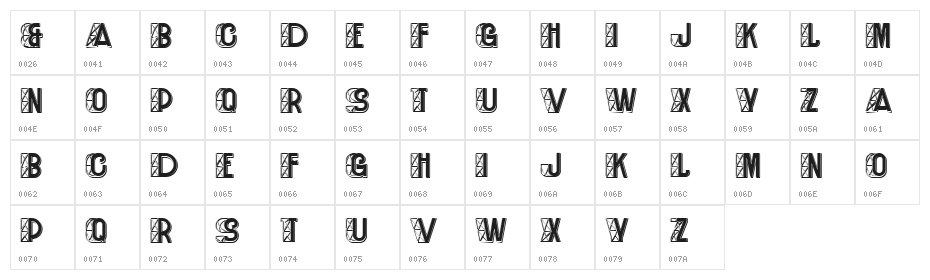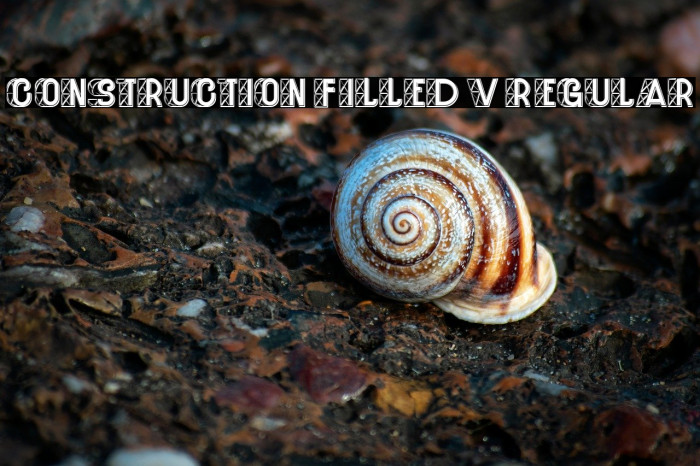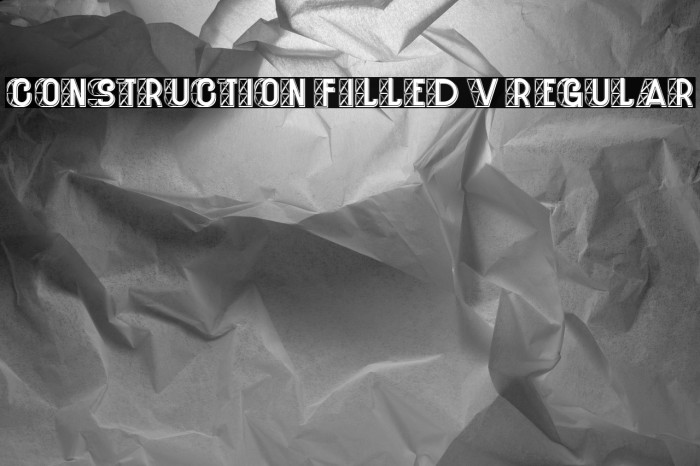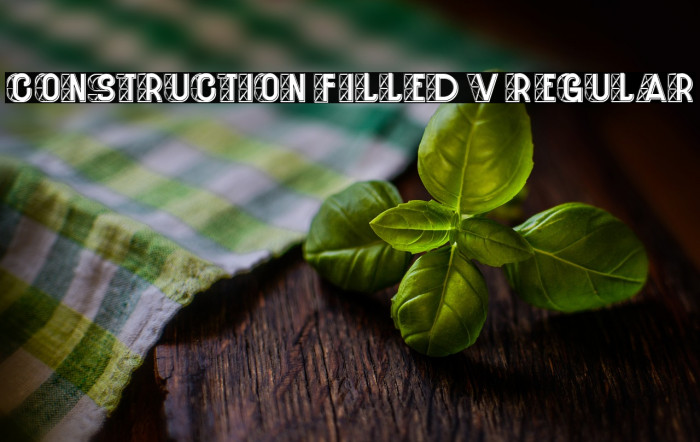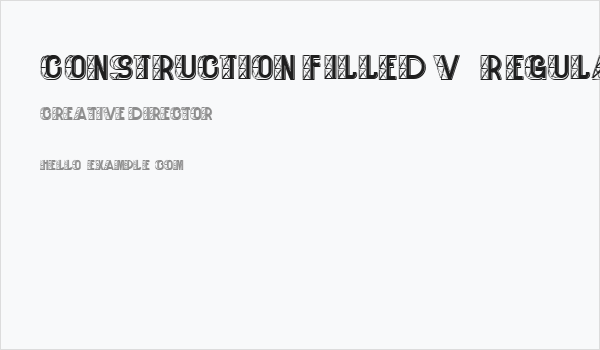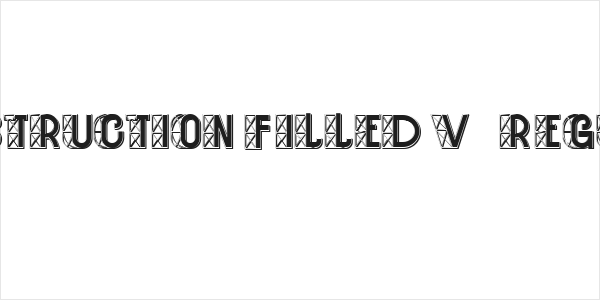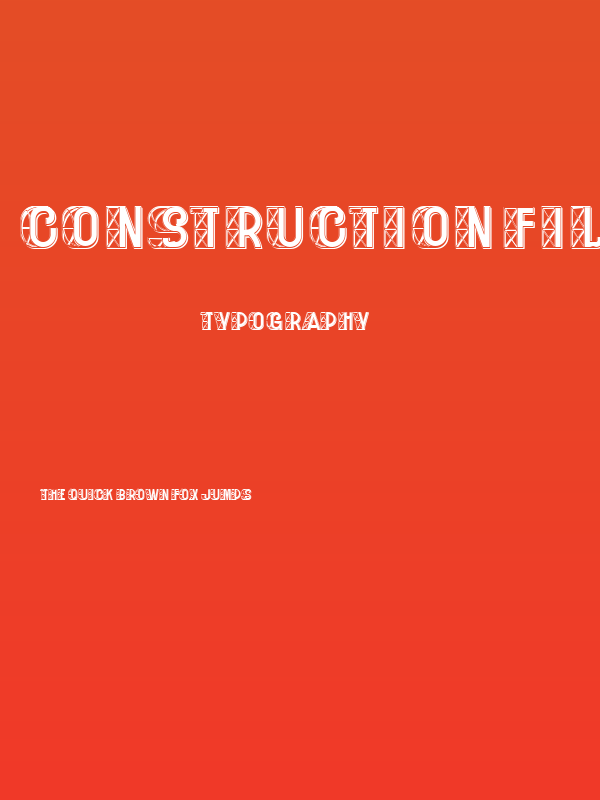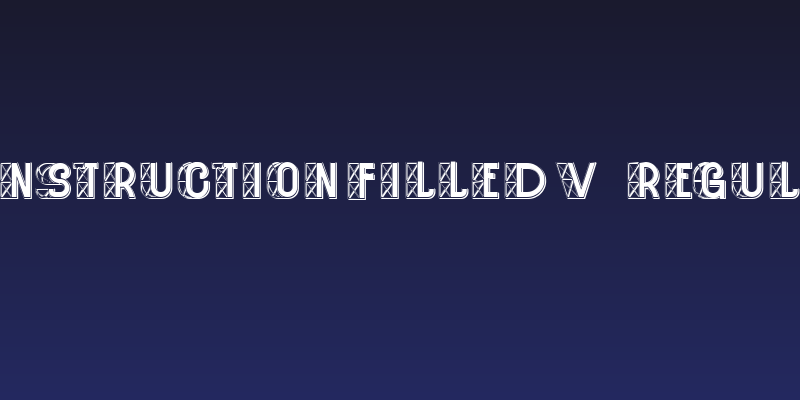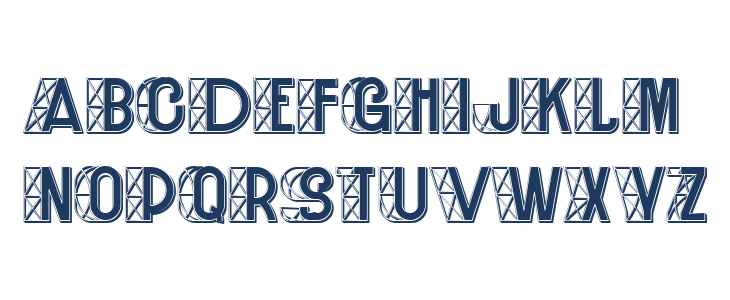
Construction Filled V2 Regular Font
Construction Filled V2 Regular Description
This font features a bold and geometric design, characterized by its unique construction-inspired pattern within each letter. The letters are filled with a series of diagonal lines and shapes that create a sense of depth and texture. The overall appearance is striking and modern, making it ideal for projects that require a strong visual impact. The uppercase letters are prominent, with a consistent width and height, ensuring readability while maintaining a decorative flair. The font's design is reminiscent of architectural blueprints, adding an industrial and creative touch to any text.
| Overall Style | Modern, Industrial |
| Proposed Projects | Ideal for branding, posters, architectural presentations, and any project needing a bold, industrial aesthetic. |